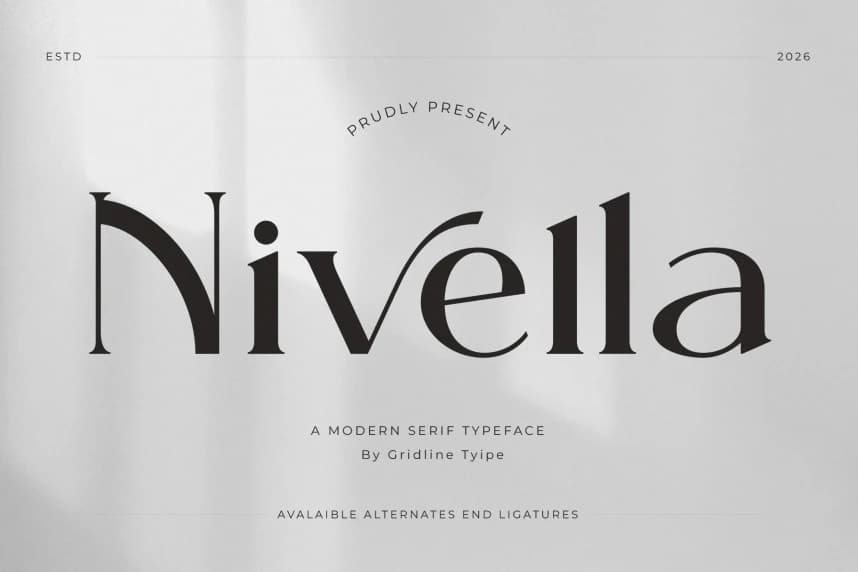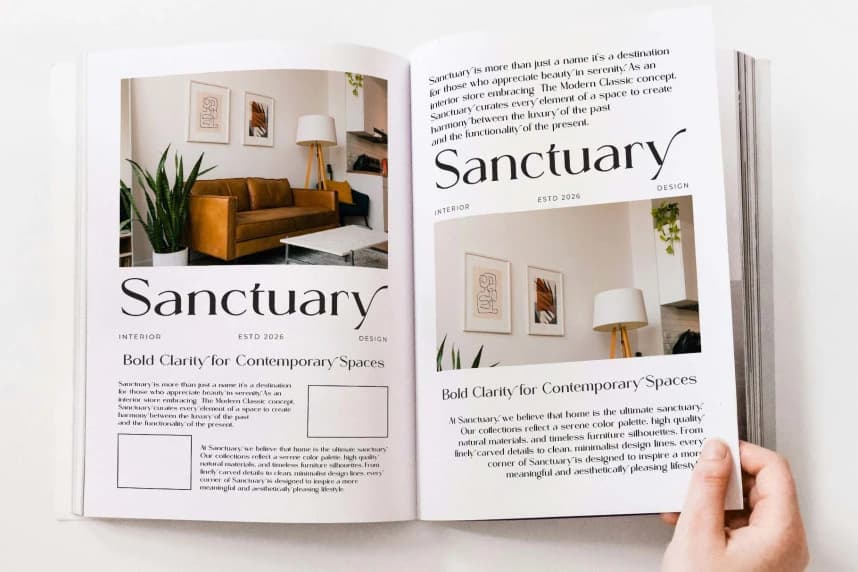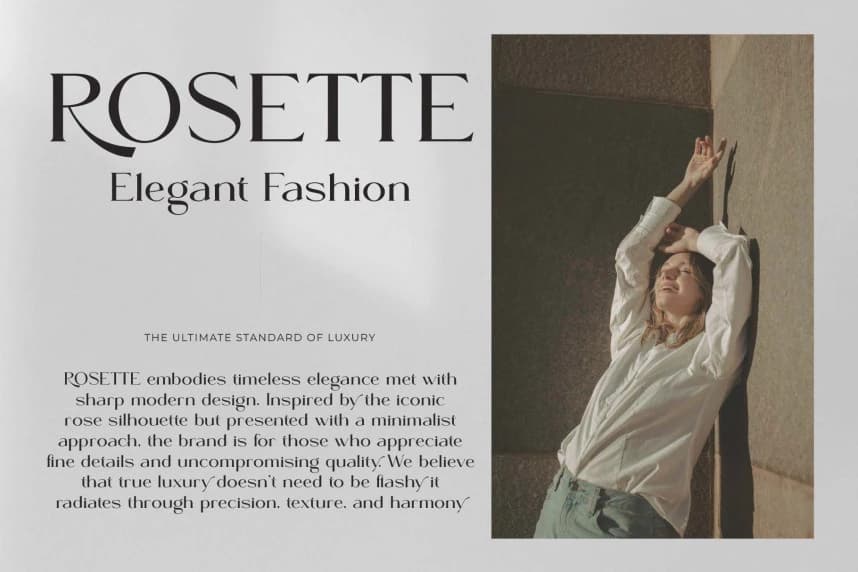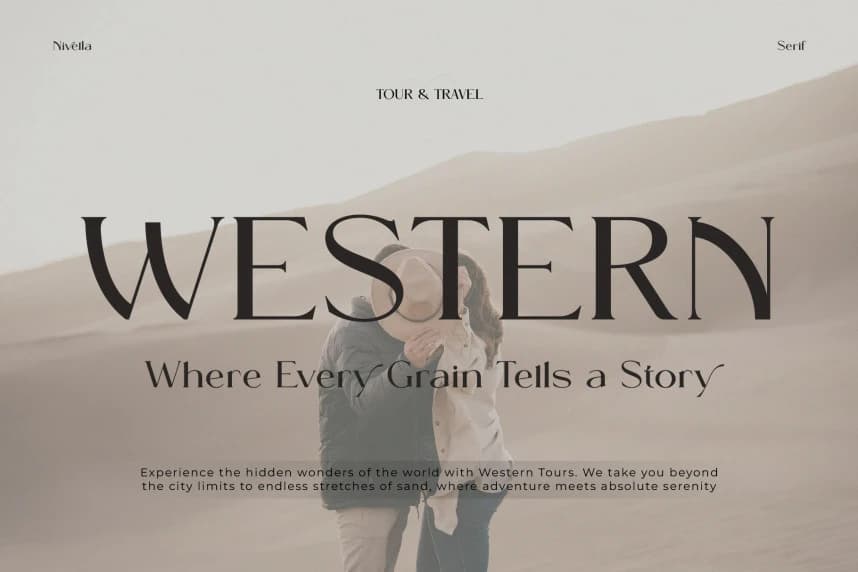
Nivella Font
Nivella Font, a modern serif typeface. This font strikes a perfect balance between traditional serif structure and modern minimalist flair. It features high-contrast strokes and clean, sharp terminals that radiate a polished, professional energy.